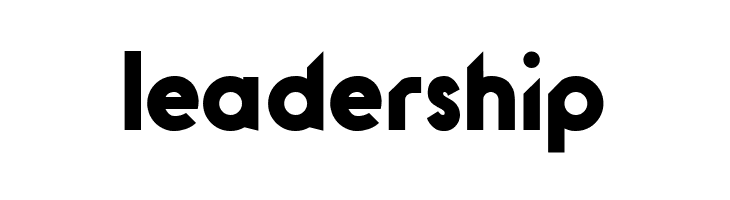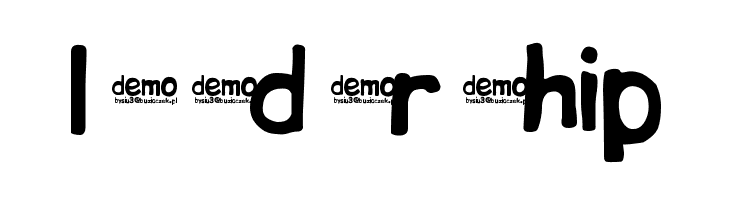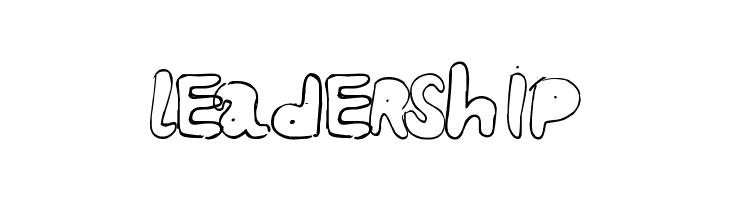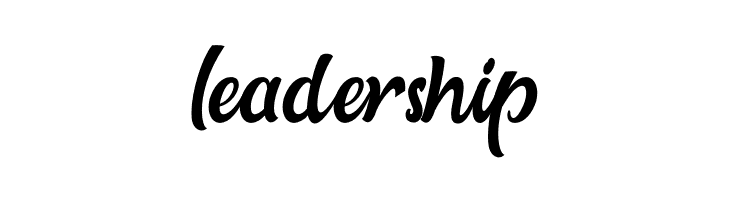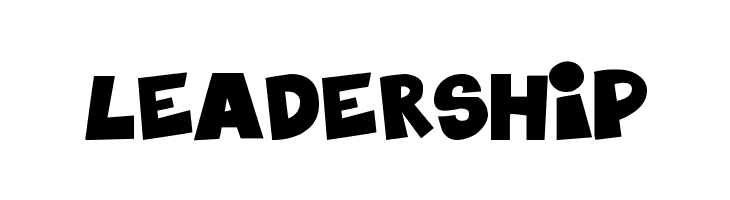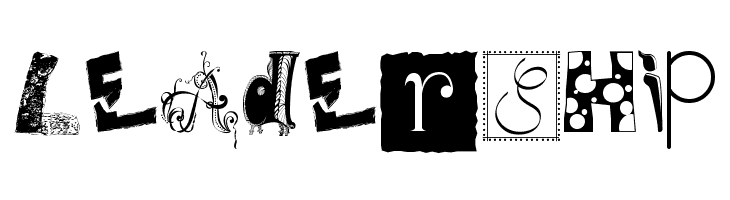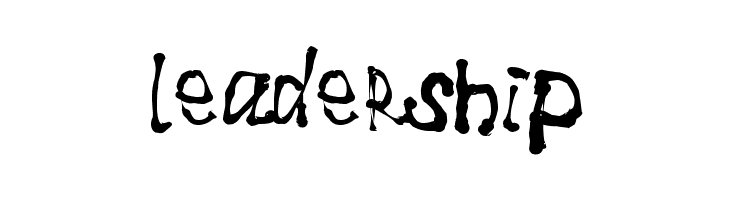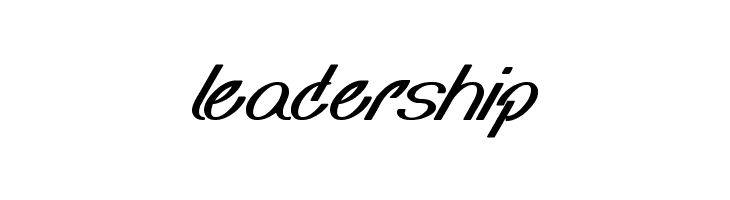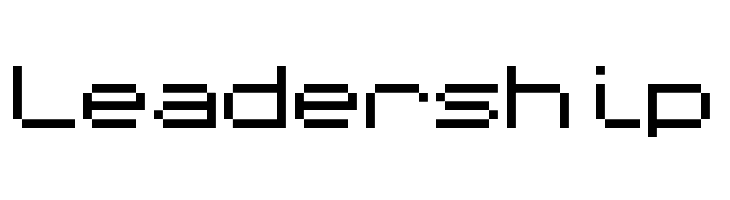
A bold, abstract font with dynamic, fluid strokes and artistic curves.
A bold, sketch-style font with diagonal hatching for a textured look.
A bold, geometric font with thick strokes and a modern, impactful style.
A bold, playful font with a distressed, artistic style.
A decorative icon set of various gift boxes and presents.
A playful, hand-drawn comic style font with a casual and friendly appearance.
A playful, hand-drawn font with a bold, sketch-like texture.
A bold, cursive font with a playful and energetic style.
A bold, playful font with a strong shadow effect and rounded characters.
A whimsical handwritten font with playful, irregular strokes and creative decorative elements.
A whimsical, playful handwritten font with unique decorative elements.
A decorative font featuring cartoon female faces as characters.
A decorative cartoon face font with playful, expressive characters.
A playful, casual handwritten font with fluid, connected letterforms.
An elegant and decorative script font with intricate swirls and loops.
A playful, handwritten font with rounded, consistent strokes.
A dynamic script font with fluid, interconnected letterforms and a playful aesthetic.
A playful, dripping font with a bold, cartoonish style.
An abstract, graffiti-like font with chaotic and overlapping strokes.
A modern, geometric font with clean lines and consistent stroke width.